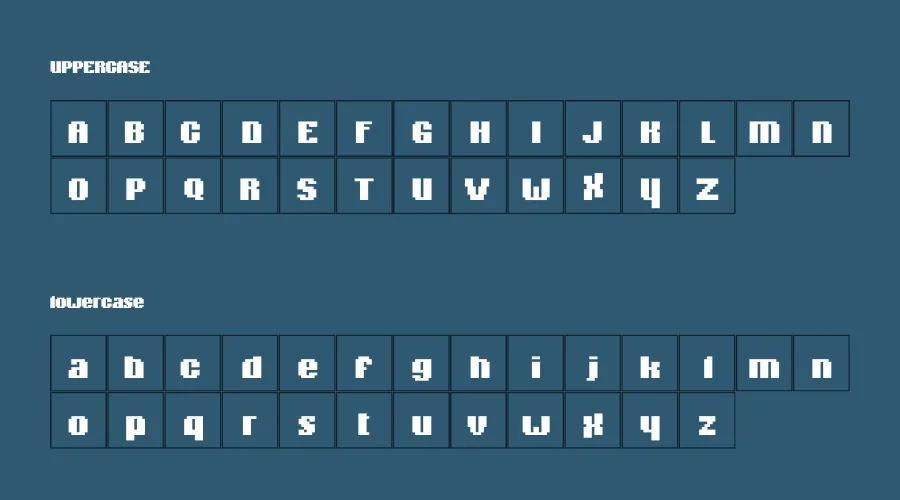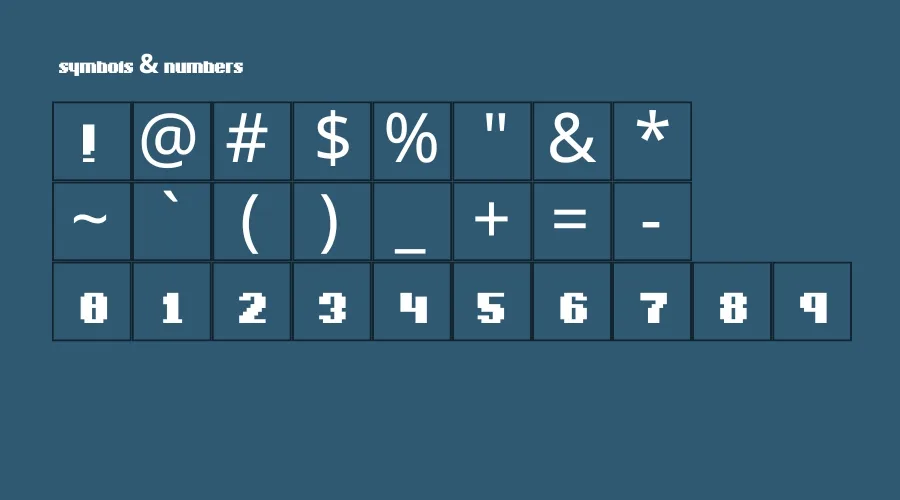
Pixelblock Normal Font
About Pixelblock Normal Font
Pixelblock Normal Font is designed by fraxyl design it is a techno style. This clean and modern font is perfect for all logos, branding, social media, and crafty DIY plan.
Suitable for logo designs, this beautiful typeface features vintage-style letters. This is an excellent choice for gaming logos and video titles. Many types of stylish logo designs can be created using this unique typeface.
This typeface has more than once been used in film posters, logos, and photoshop designs, and it is also a popular choice for designers who want to create designs related to procedures.
By pairing this font with circuit font, you can create imaginary and wonderful designs. In addition to creating an eye-catching outcome, it also gives your project an interesting appearance.
In addition to flyers and posters, this typeface is useful for various types of display designs. Various types of documentation are written with this typeface, including articles, invoices, notes, and headings.
Photoshop, Canva, and other design software are compatible with them. Decorative cards, greeting cards, invitation cards, and business cards can also be made using this beautiful typeface. The themes and templates on a website or blog can create with it.
A signature, an article, a quote, and a social media post can be designed using this typeface. Also useful for post-descriptions and other design projects. This font is also paired with the dust demon font.
Name Pixelblock Normal Font
Designer fraxyl design
Style Techno
Is Pixelblock Normal Font great to use?
This typeface is perfect for unique content. In expansion, it is right for any plan ventures such as advertisements, site layouts, social media posts, brands, cities, and cards.
What kind of generator tool is Pixelblock Normal Font?
For the fast creation of realistic plans, it is an exceptionally idealized instrument. You’ll be able to make numerous plans effectively.
Does Pixelblock Normal Font have great readability?
The typeface has unbelievable meaningfulness. It may be an exceptionally flexible textual style that can be utilized for numerous purposes and is easy to understand.